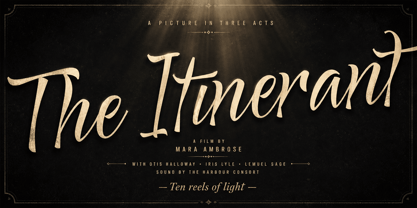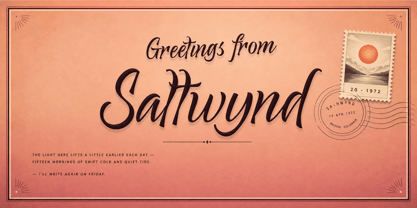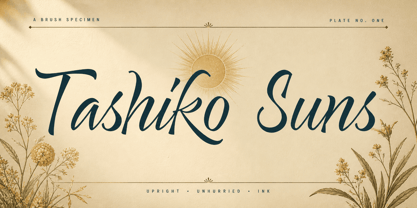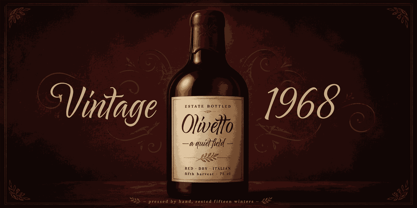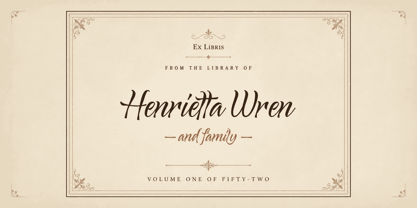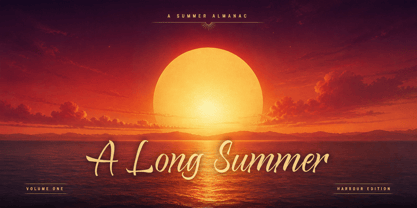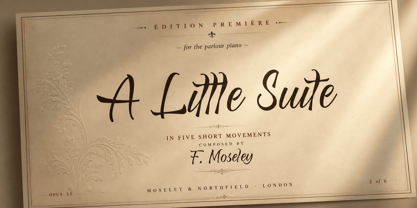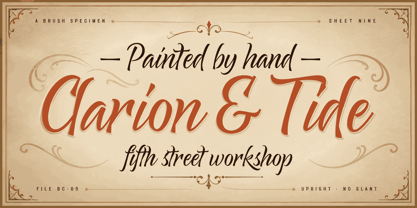
Tashiko Suns
The Tashiko Suns Font Family was designed by Måns Grebäck and published by Mans Greback. Tashiko Suns contains 4 styles and family package options. More about this family
Tashiko Suns is an upright brush script with bouncing baselines and weighted downstrokes.
The letters connect through quick entry strokes, but the posture stays vertical — there is no italic lean. Within a word, the lowercase rises and falls in height as if the hand was speeding up between letters; the uppercase opens with confident swashes that loop back into the body of the form. The strokes carry the modulation of a fat marker pulled across paper, with terminals that flick rather than taper.
You can picture it on a hand-painted sign at the top of a steep market street, or at the head of a folded paper menu where the day's prices have been written in by hand.
The font is built with advanced functionality and guaranteed top-notch quality, containing stylistic and contextual alternates, ligatures and more automatic and manual features; all to give you full control and customizability.
It has extensive lingual support, covering all Latin-based languages, from North Europa to South Africa, from America to South-East Asia. It contains all characters and symbols you'll ever need, including all punctuation and numbers.